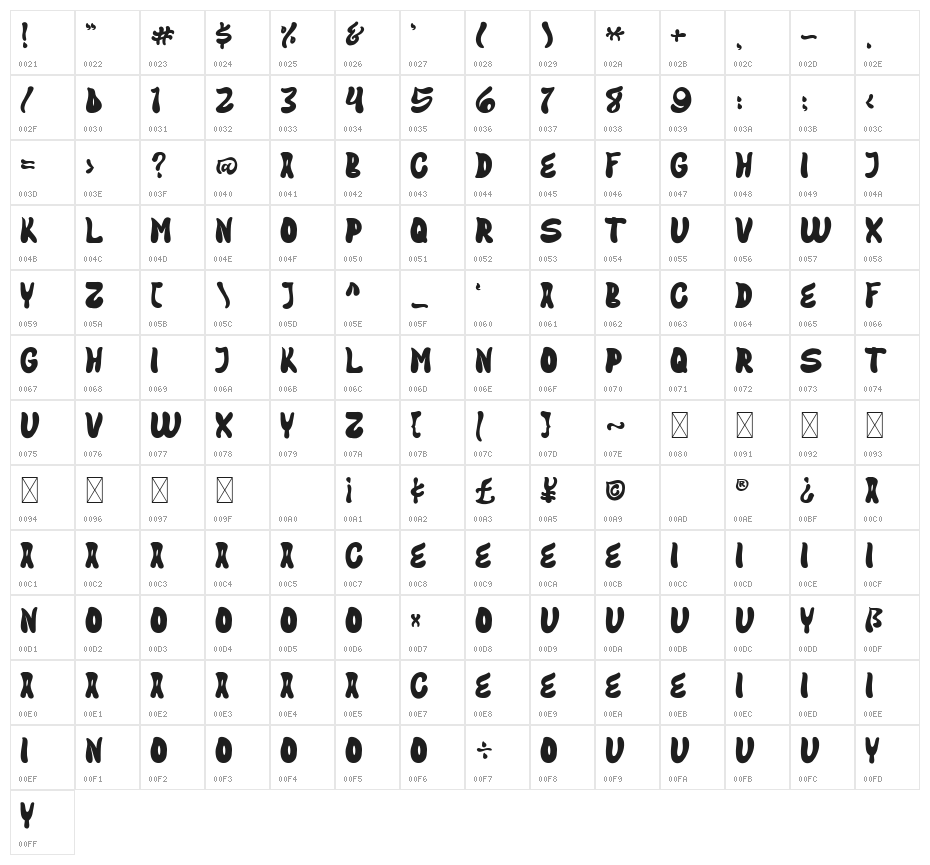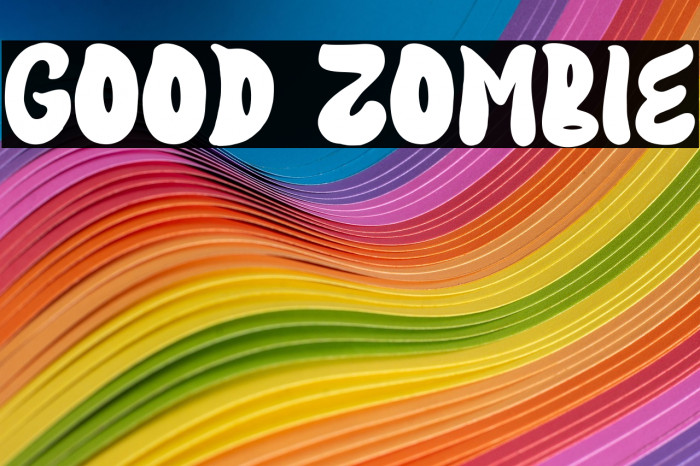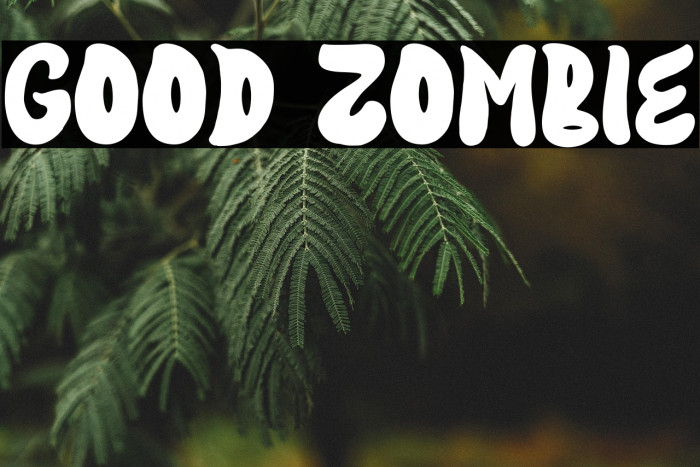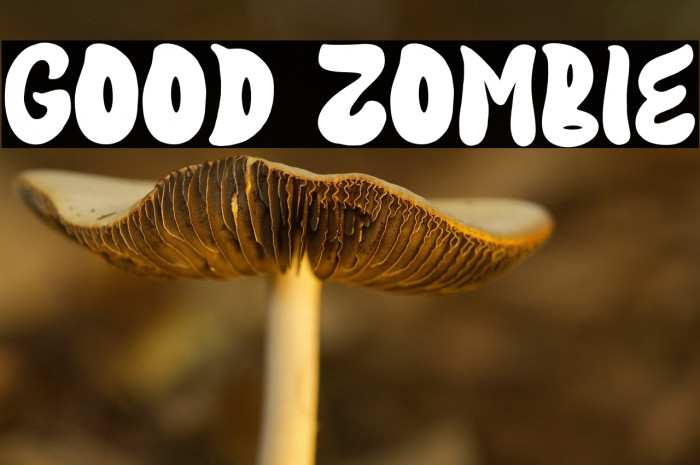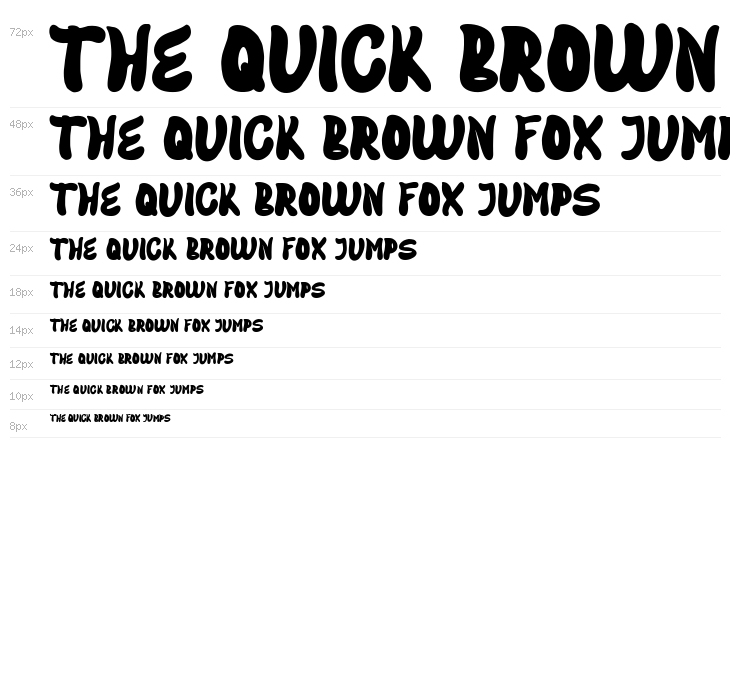
Good Zombie Font
Good Zombie Description
This font features a playful and bold design with thick, rounded strokes that give it a cartoonish and lively appearance. The characters are highly stylized, with exaggerated curves and a slightly irregular form that adds to its whimsical charm. The uppercase and lowercase letters maintain a consistent style, while the numbers and special characters are equally bold and dynamic. This font is perfect for projects that require a fun and eye-catching display, such as children's books, posters, or party invitations. Its unique style makes it stand out, ensuring that any text set in this font will capture attention.
| Overall Style | Playful, Whimsical |
| Proposed Projects | Ideal for children's books, posters, party invitations, and playful branding. |